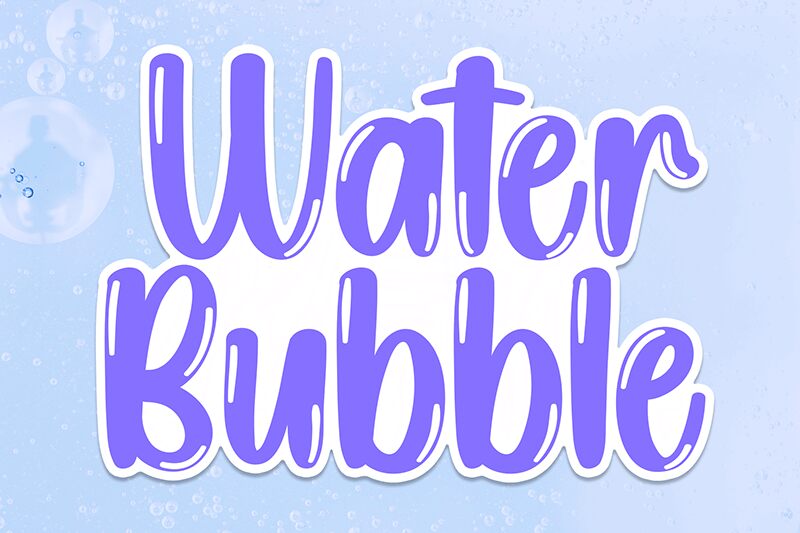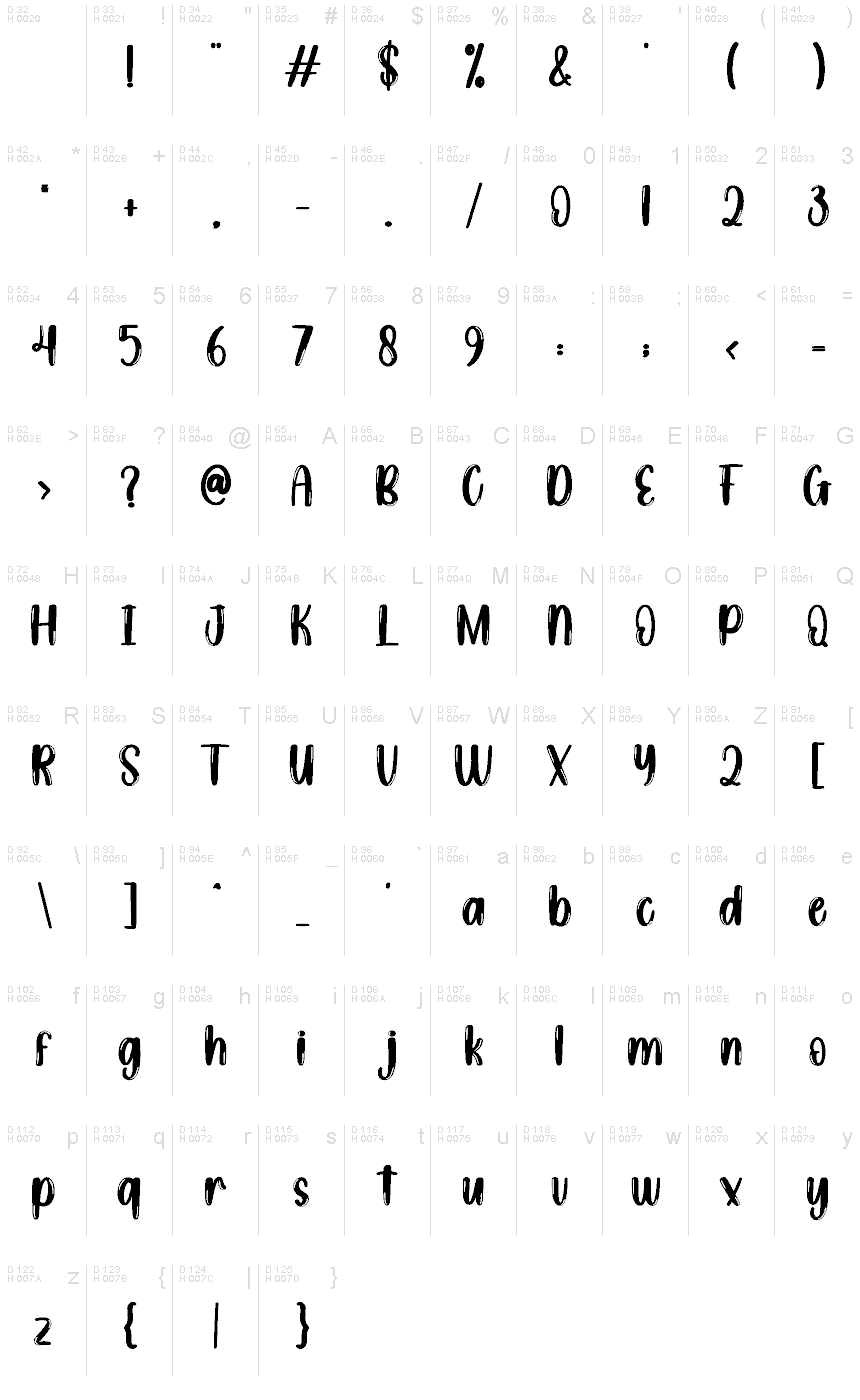
Water Bubble
Water Bubble font by Scratchones balances creativity and modernity to bring personality to your texts. The condensed, free display typeface delivers a dose of youthful charm and unique, artistic style through its expressive letters with natural muscle-like contours.
Use it in logos, product labels, t-shirt prints, stationery designs, magazines, posters, book covers platforms. For quick projects or significant ones that require attention to detail and nostalgia all the same!